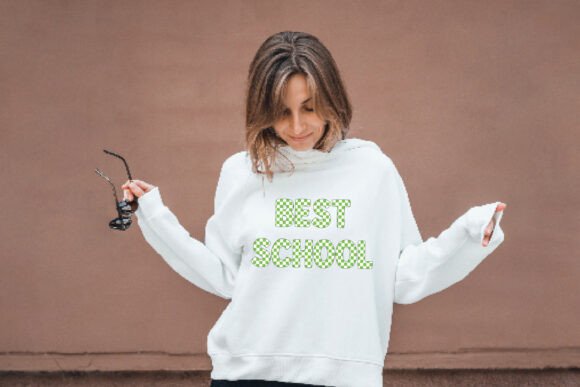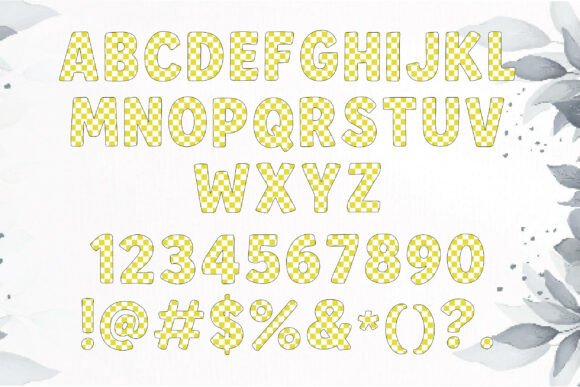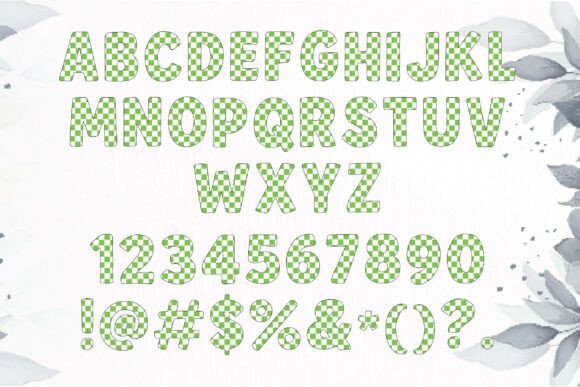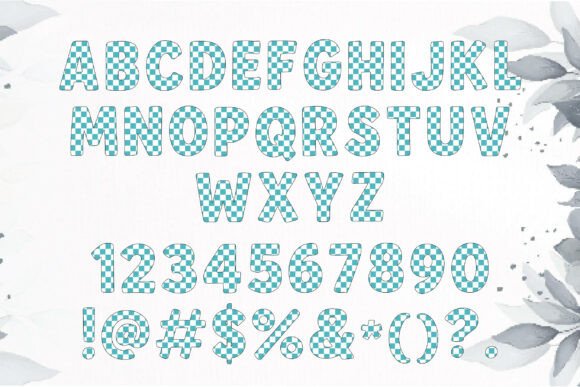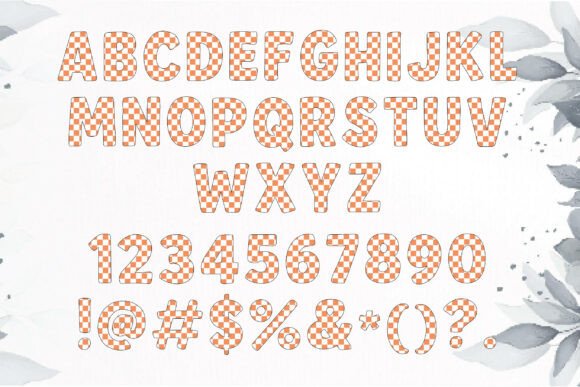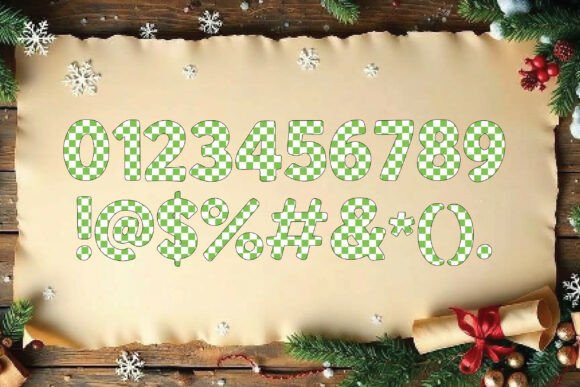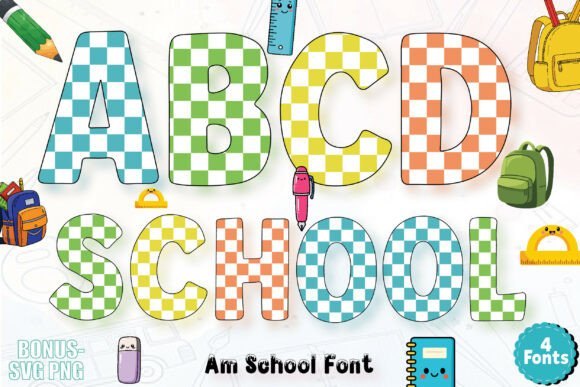
Introducing Am School Font: A Colorful Classroom Alphabet Collection 🎒📚
Are you a teacher, student, or designer looking for a fun and engaging way to create school-inspired designs? Look no further than the Am School Font Bundle, a vibrant collection of four creative styles that are perfect for classroom and educational projects. In this article, we’ll explore the features and benefits of this exciting font bundle and how it can elevate your designs.
What is Am School Font?
Am School Font is a comprehensive bundle of four unique fonts, each designed with playful and educational themes. The bundle includes:
- School Checkered Font
- Classroom Bubble Font
- Teacher Colorful Alphabet
- Back to School Pattern Font
These fonts are carefully crafted to add a pop of color and fun to your designs, making them ideal for classroom decor, teacher t-shirt designs, student projects, back to school designs, educational materials, stickers, planners, sublimation projects, and printable designs.
Key Features of Am School Font
The Am School Font Bundle offers several key features that make it a must-have for designers and crafters:
- Vibrant Colors: Each font is designed with bright, bold colors that are sure to grab attention and add visual interest to your designs.
- Playful Themes: The fonts feature playful and educational themes that are perfect for school-inspired designs.
- Multiple Styles: The bundle includes four unique font styles, giving you a range of options to choose from.
How to Use Am School Font
The Am School Font Bundle is easy to use and can be applied to a variety of design projects. Here are some ideas to get you started:
- Classroom Decor: Use the fonts to create colorful posters, banners, and decorations for your classroom.
- Teacher T-Shirt Designs: Create eye-catching t-shirt designs for teachers, staff, or students.
- Student Projects: Add a pop of color and fun to student projects, such as presentations, reports, or worksheets.
- Back to School Designs: Create engaging back to school designs, such as flyers, brochures, or social media graphics.
- Educational Materials: Use the fonts to create educational materials, such as textbooks, workbooks, or activity sheets.
The Am School Font Bundle offers several benefits for designers and crafters:
- Increased Creativity: The Am School Font Bundle inspires creativity and imagination, helping you to create unique and engaging designs.
The Am School Font Bundle is a valuable resource for designers, teachers, and students looking to add a touch of fun and color to their school-inspired designs. With its four unique font styles, vibrant colors, and playful themes, this bundle is perfect for a range of design projects. Whether you’re creating classroom decor, teacher t-shirt designs, or educational materials, the Am School Font Bundle is sure to elevate your designs and make them stand out.